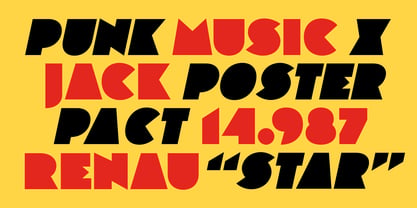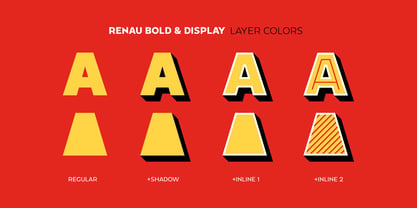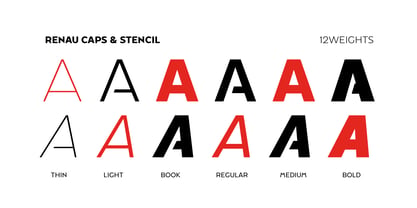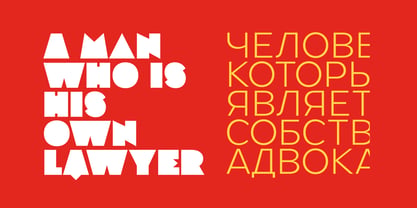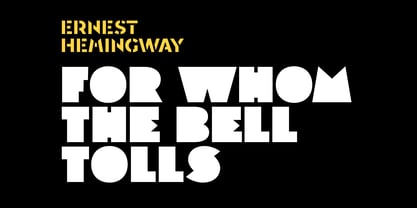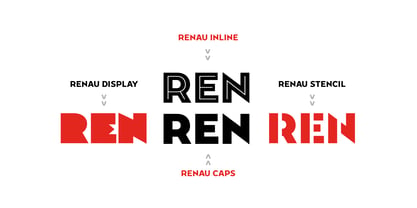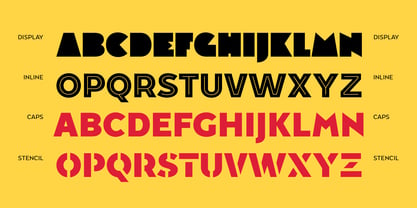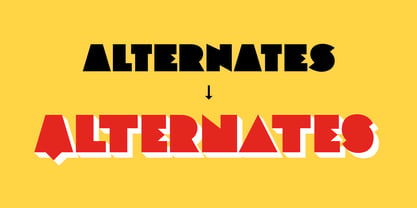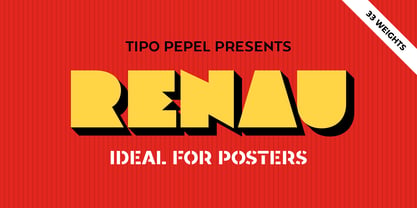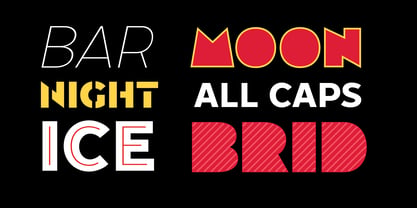
Renau
by Tipo Pèpel
Renau is an extensive typeface designed for use in posters. It is inspired by the graphics of the air raid shelters in Valencia during the Spanish Civil War, and exudes an Art Deco air from the 1930s. Its wide range of styles are perfect for attracting attention.
Also included in the package are display inlay and shadow versions to make your own three-dimensional letters on paper.